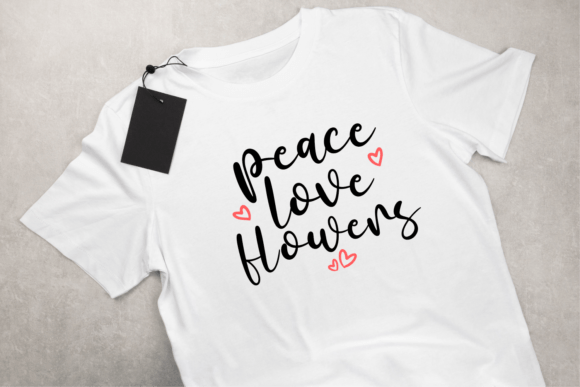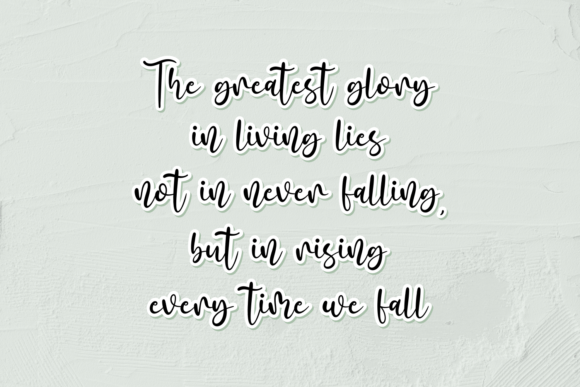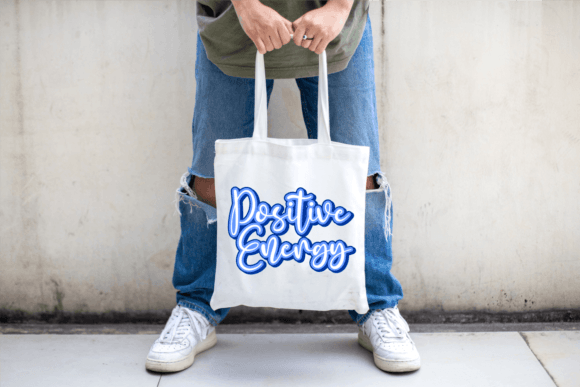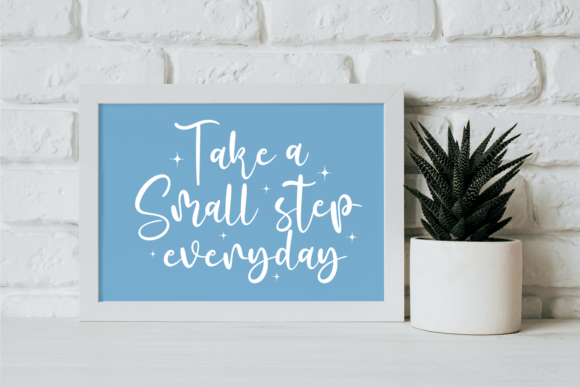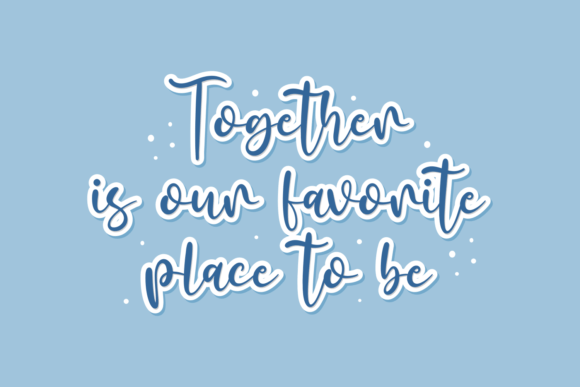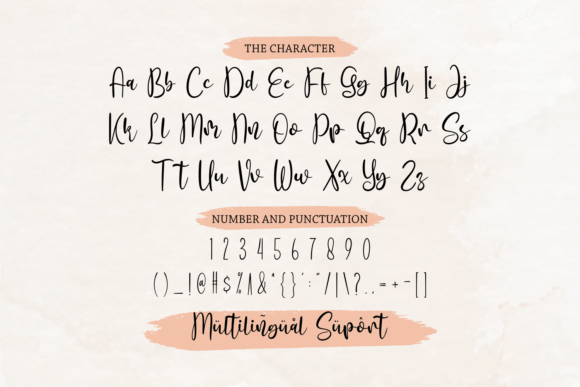
The Bigtyles Font: A Designer’s New Best Friend
I’ll never forget the moment I stumbled upon Bigtyles Font while working on a high-end branding project for a luxury client. I had spent hours scouring the internet for the perfect font, but nothing seemed quite right. That was until I laid eyes on Bigtyles – its elegant, handwritten strokes instantly captured my heart. I knew right then and there that I had found my new go-to font. In this article, I’ll share my love for Bigtyles, its features, and how to make the most of it in your designs.
An Honest Review of Bigtyles Font
What I Love About Bigtyles ✨
• 💫 Exquisite handwritten design with a classy, calligraphic feel
• 🌟 Contemporary and fresh, perfect for modern projects
• 🎨 Highly versatile, suitable for a wide range of design applications
• 👍 Easy to read, even in smaller sizes
While Bigtyles is an amazing font, there are a few things to keep in mind:
• 🤔 Some users might find the font a bit too ornate for very casual or playful projects
• ⚠️ As with any script font, it may not be the best choice for very long blocks of text
4. Experiment with OpenType features like ligatures and stylistic alternates to add personality to your text
The Story Behind Bigtyles Font
Bigtyles was created with the goal of crafting a font that exudes elegance and sophistication while still feeling modern and fresh. The designer aimed to create a font that would become a favorite among designers and crafters alike, perfect for a wide range of projects from branding and advertising to crafting and DIY tutorials.
Q: What makes Bigtyles Font unique?
A: Bigtyles Font stands out with its exquisite handwritten design, blending classy calligraphic influences with a contemporary feel.
Q: Does Bigtyles Font support OpenType features?
A: Yes, Bigtyles Font supports OpenType features like ligatures, stylistic alternates, and glyphs, allowing you to add personality and variety to your text.
Q: Is Bigtyles Font suitable for body text?
A: While Bigtyles Font is beautiful, it’s primarily designed for headlines and short text passages. For longer blocks of text, a more straightforward font might be more suitable.